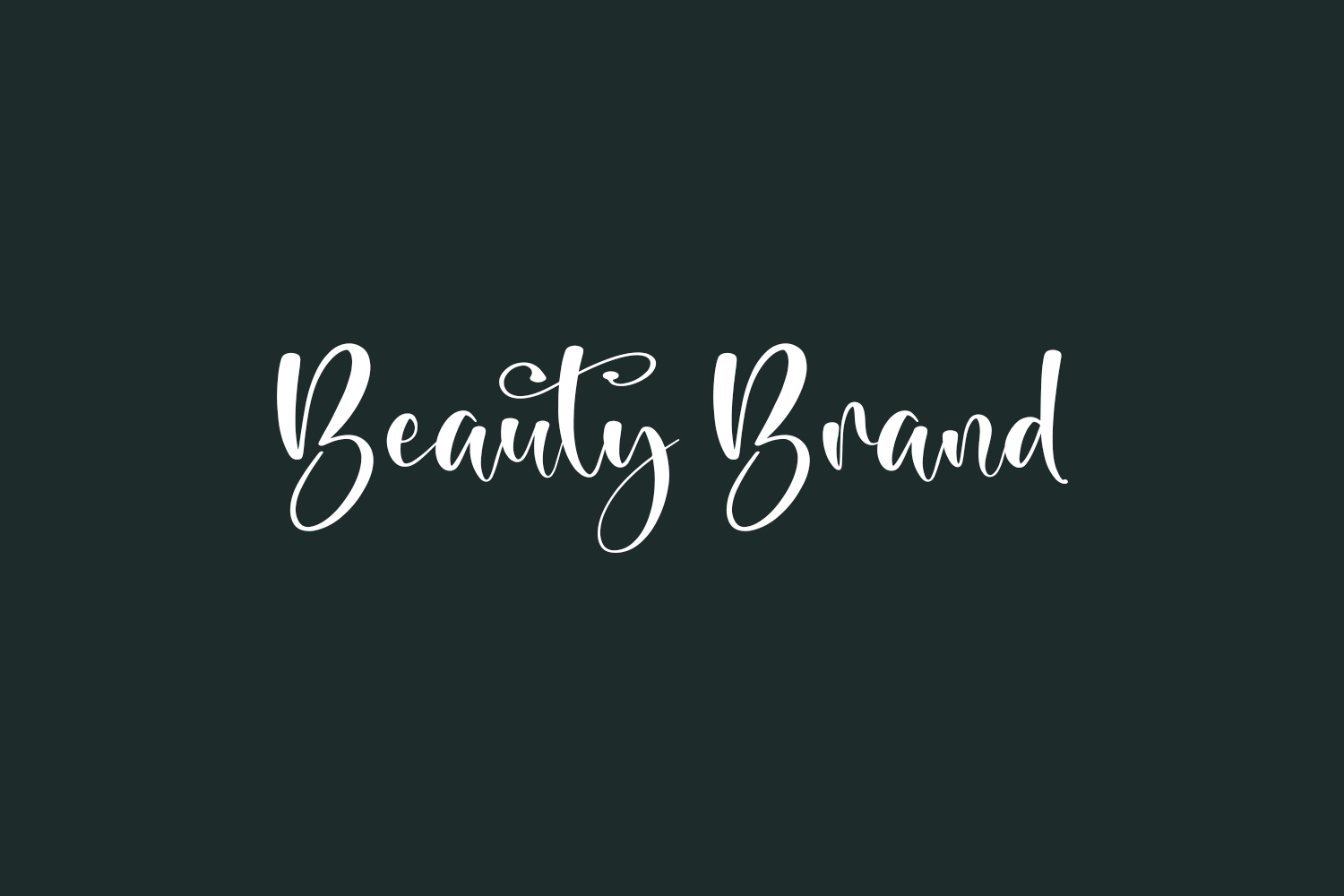
Beauty Brand Free Font Family is a lovely and timeless handwritten font. It is the best choice for creating eye catching logos, branding, and quotes. Beauty Brand Free Font Family was designed by Perspectype Studio and is free for personal or commercial use.